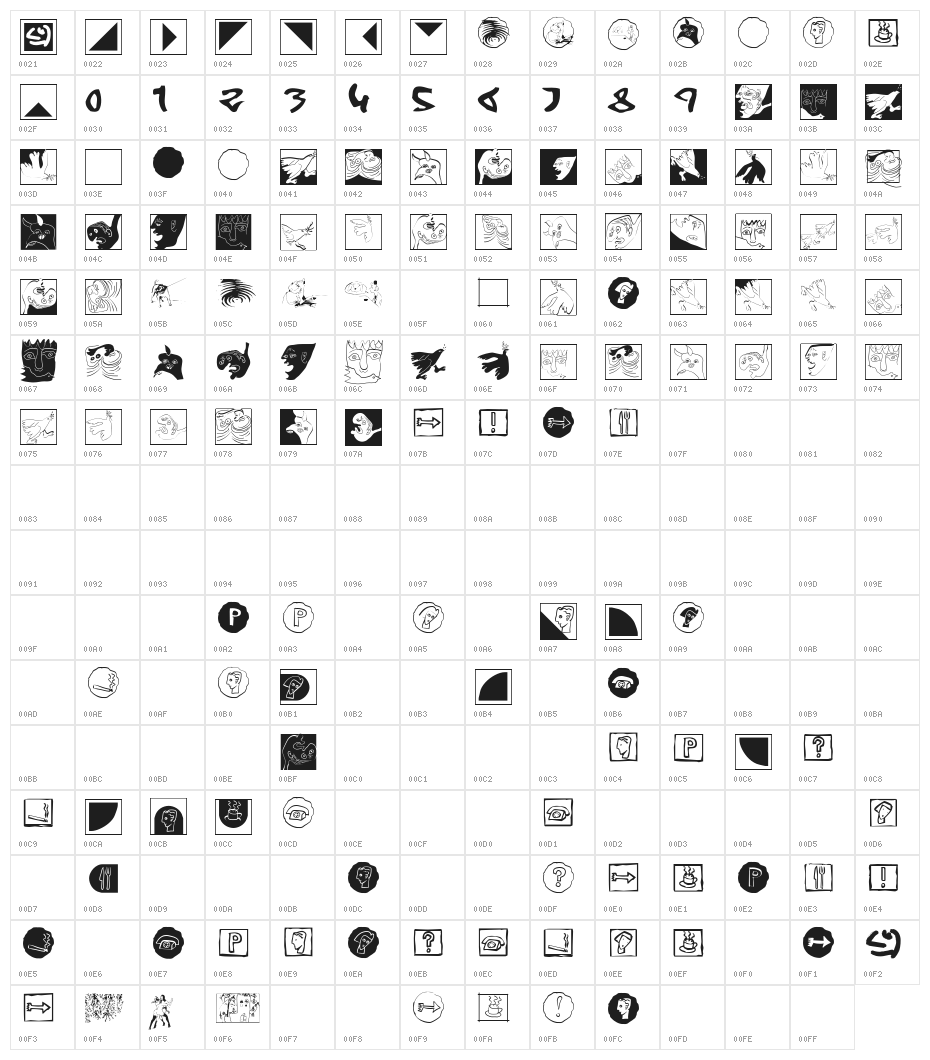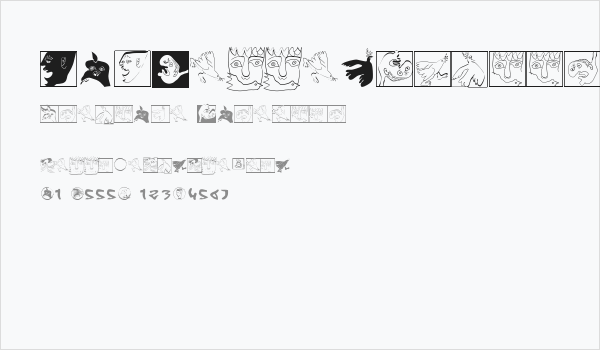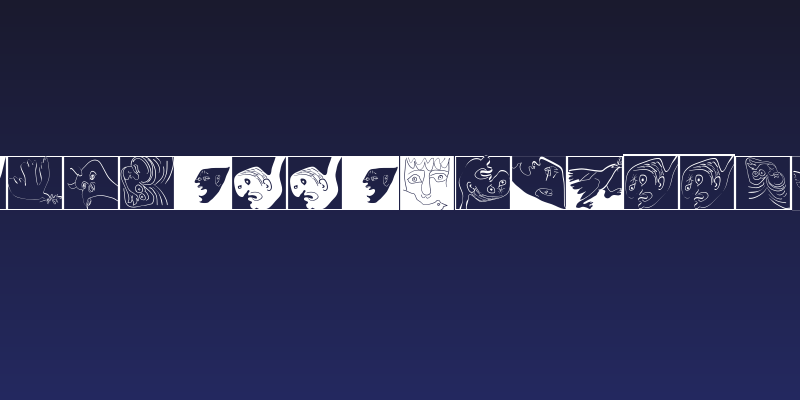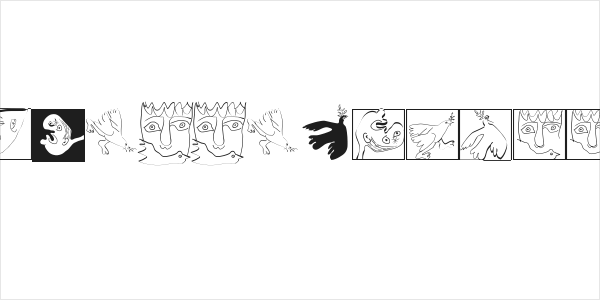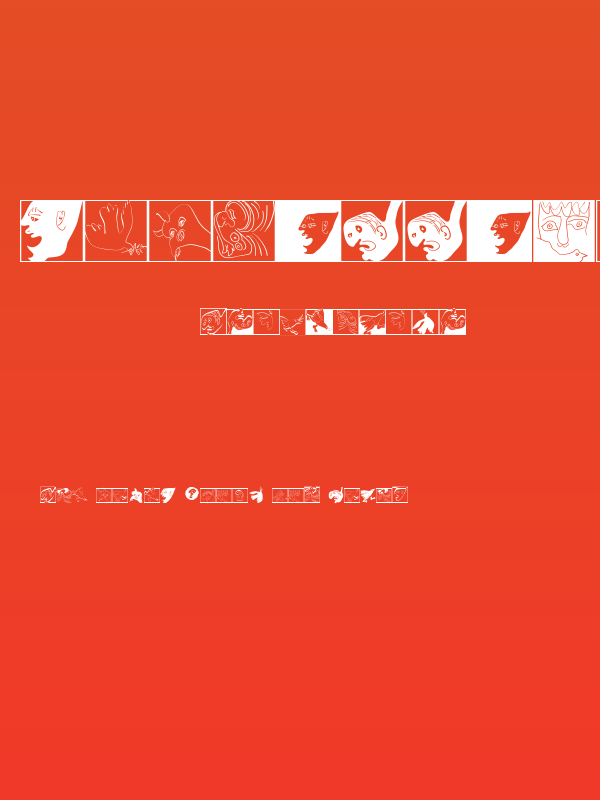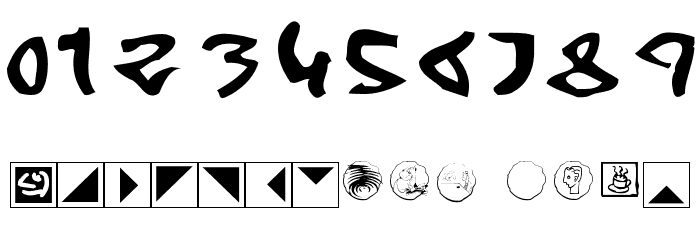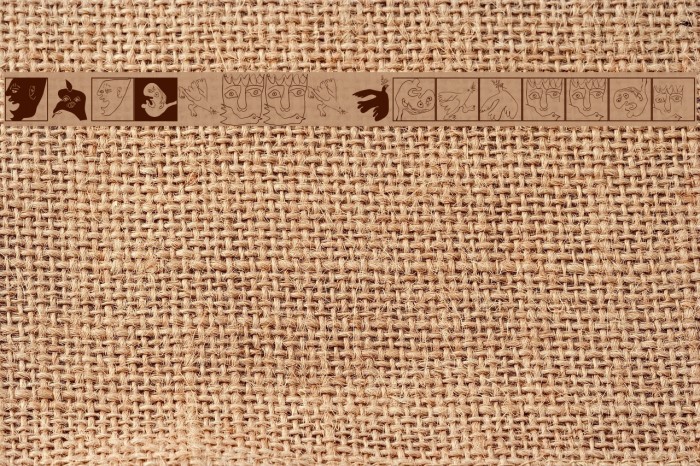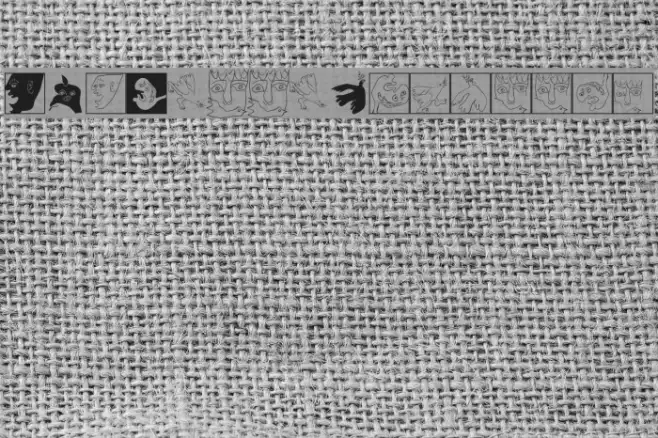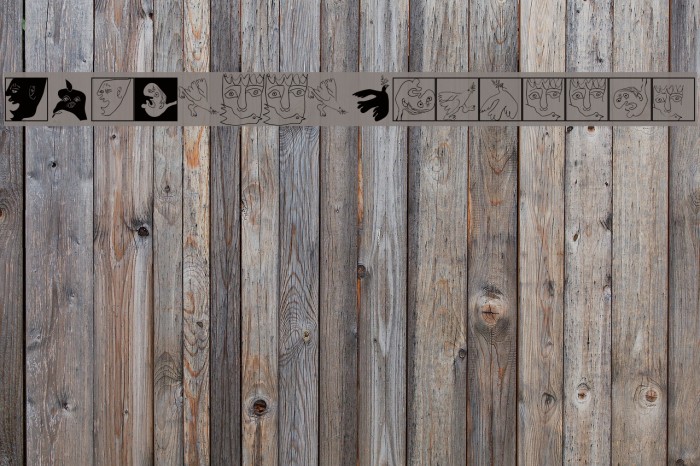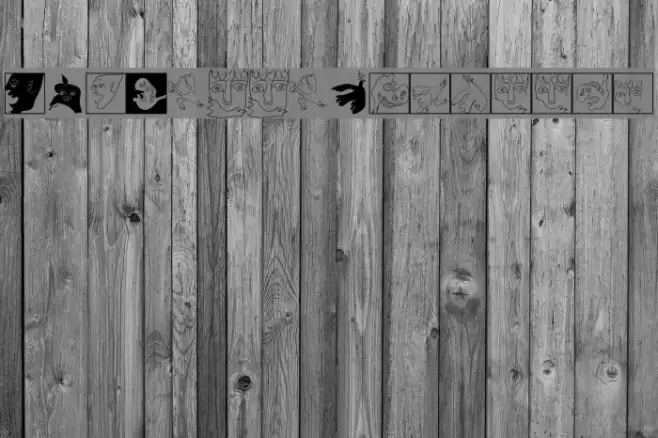
MiszellenQuattro Font
| Stile generale | Artistic, Whimsical, Decorative |
| Caso d'uso | Logos, Posters, Artistic Projects |
| Progetti proposti | Ideal for artistic projects, posters, album covers, or any design work that requires a unique and creative touch. |